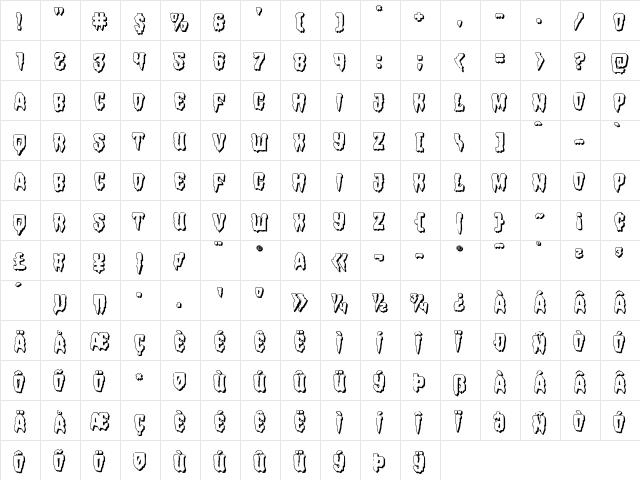
Hemogoblin 3D Regular
Design Context for Hemogoblin 3D Typeface
Hemogoblin 3D is a composed and adaptable typeface that performs quietly and consistently across a wide range of design contexts.